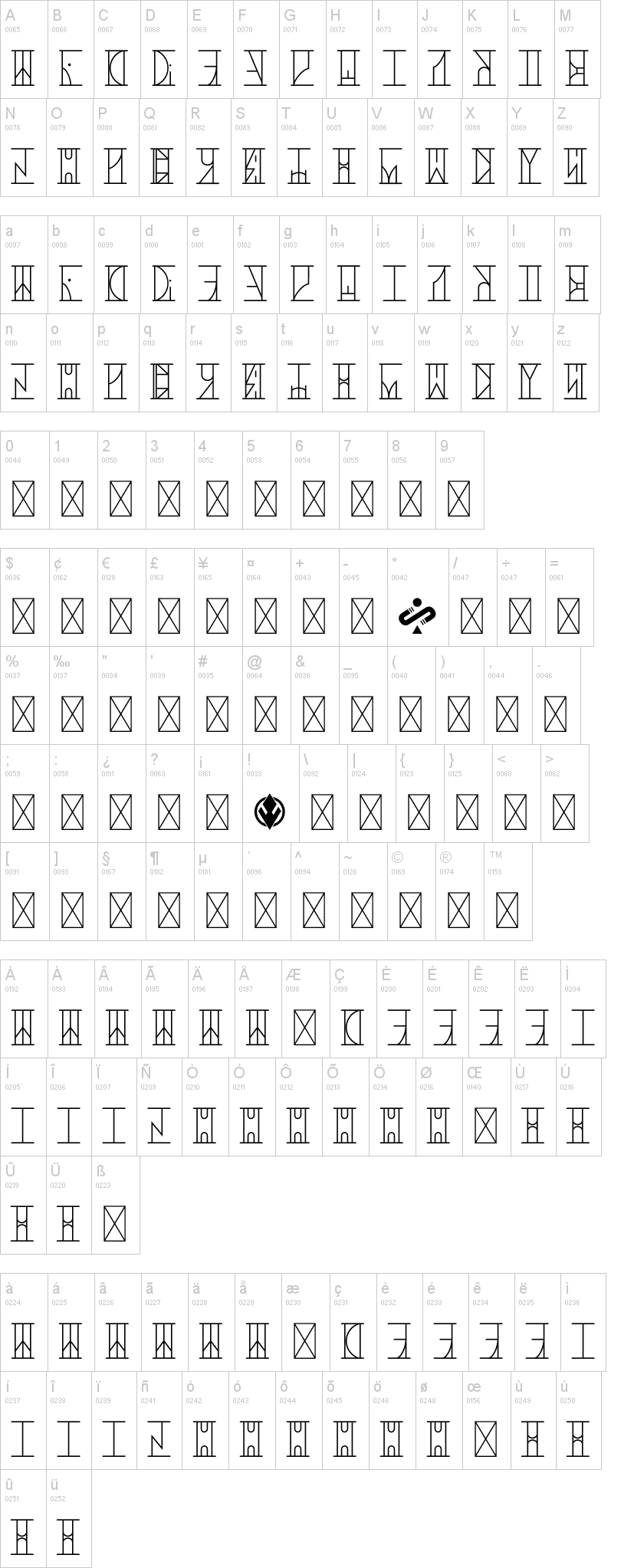
I needed the Ur-Kittat for a design project and realised there was no font file for the ancient runic language of the sith, used on Oshi's Dagger as well as many places throughout the Star Wars Universe
the typeface is lowercase only, with the Sith Eternal Symbol called with '!' (I've also included my log on '*')